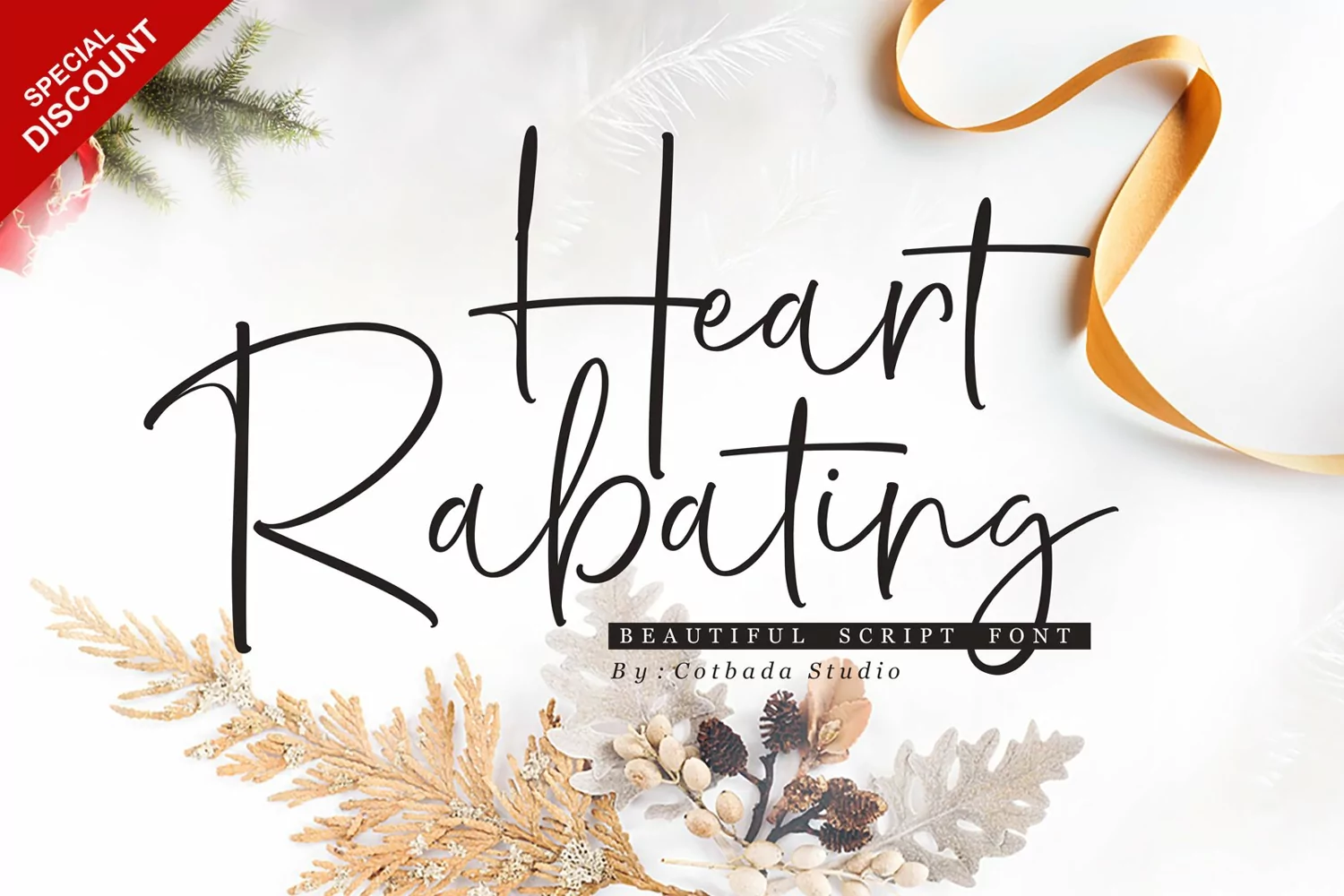
Heart Rabating Font Script is a unique, cool and modern handwritten font. It's hand look style makes it perfect for use in all your design projects be it logos, Labels, Packaging design, Blog headlines, Poster, Instagram Design, etc